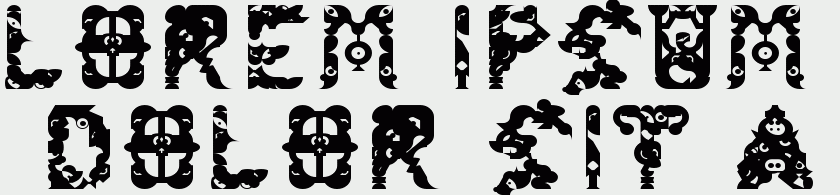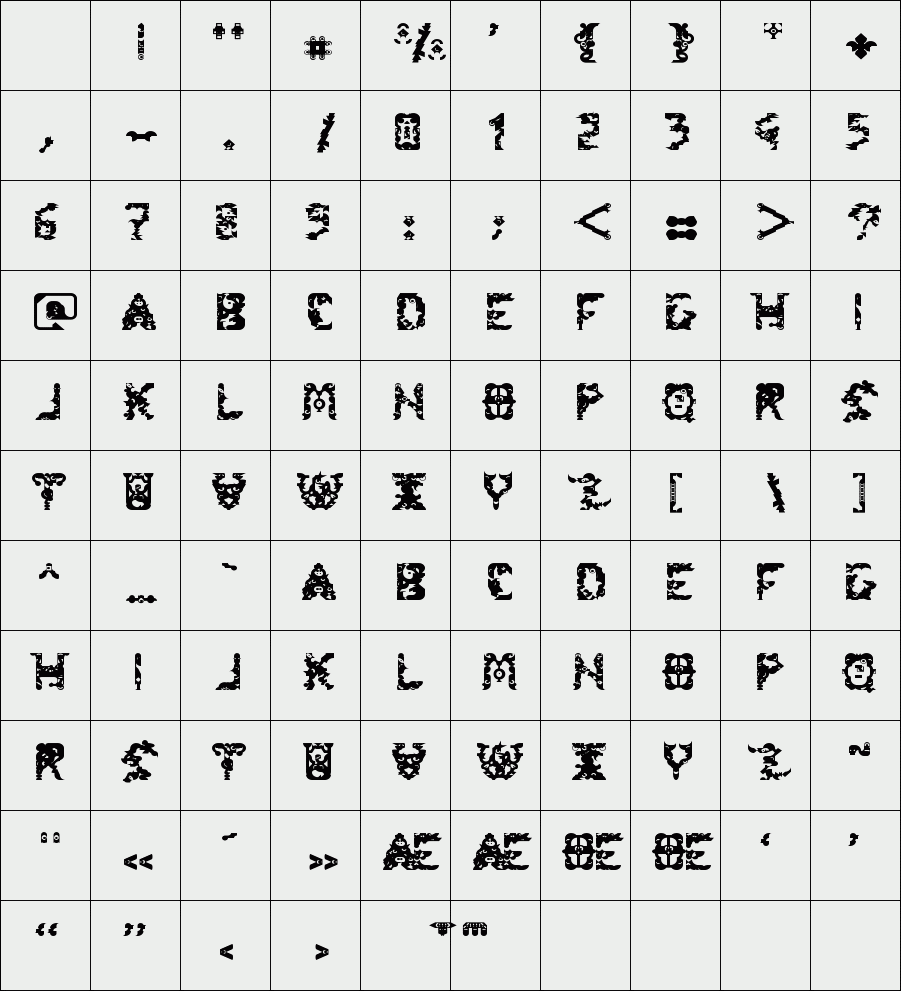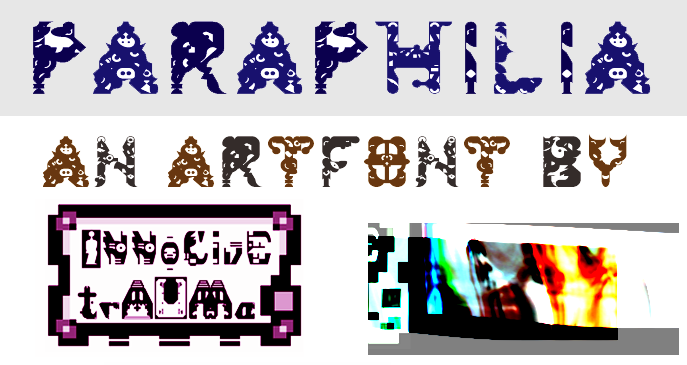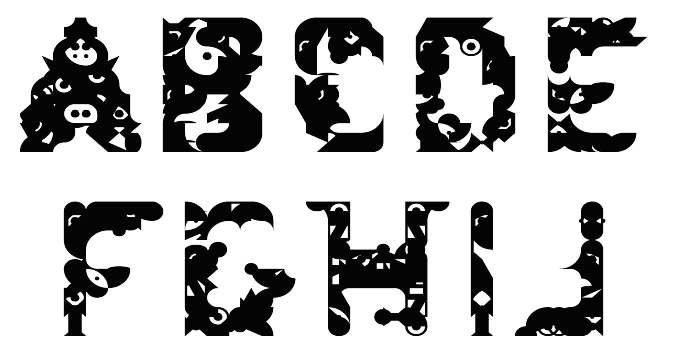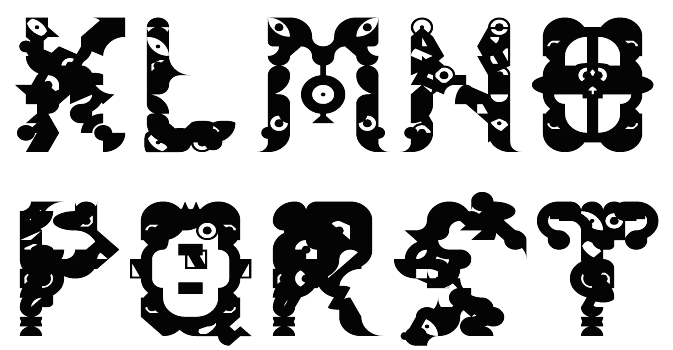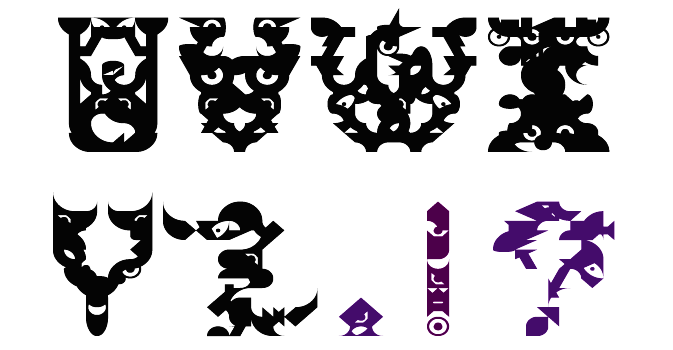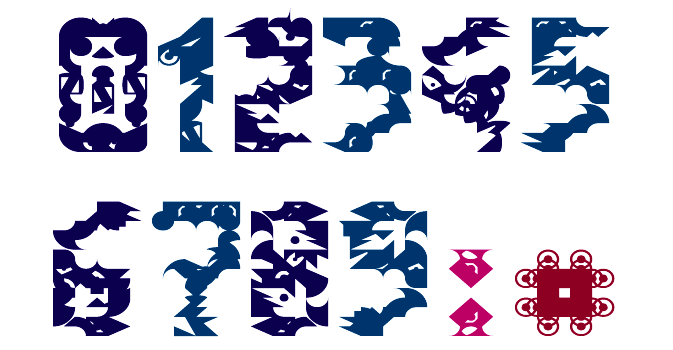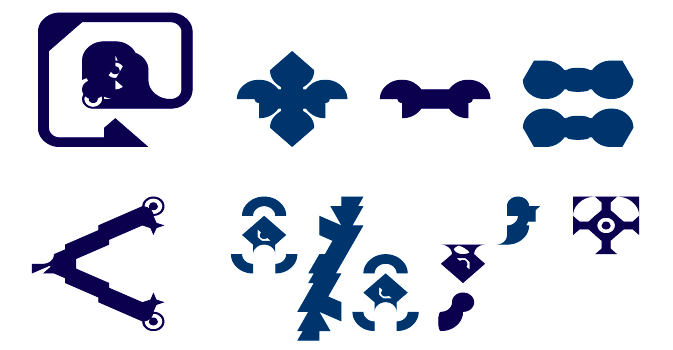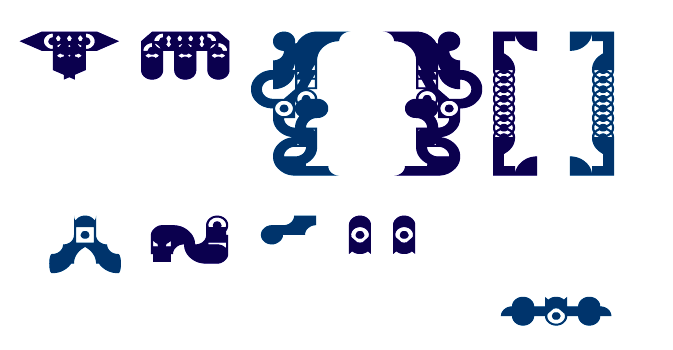
trAUMa 100 / Paraphilia
"Paraphilia", like all the "trAUMa" series, works at the frontier between Art & Type Design, Figuration & Abstraction, each font is a comprehensive world in which every glyph is a "living" entity. But put together they can produce your messages in the most accurate way.